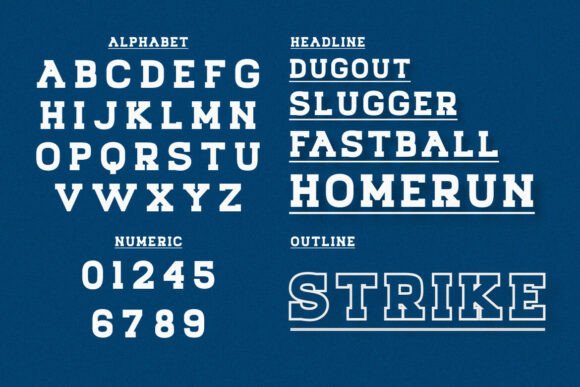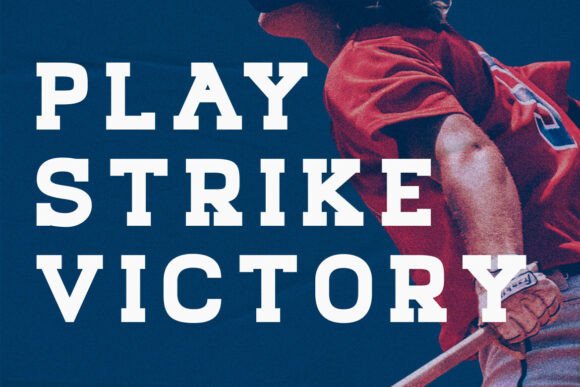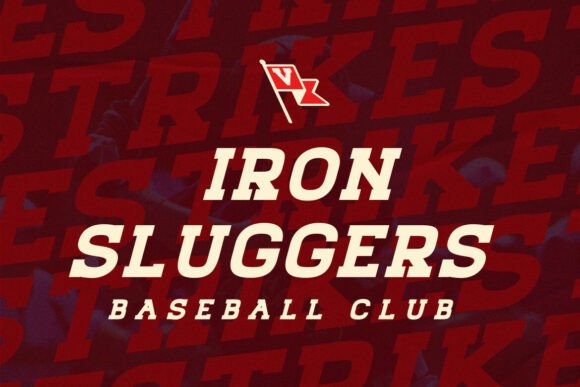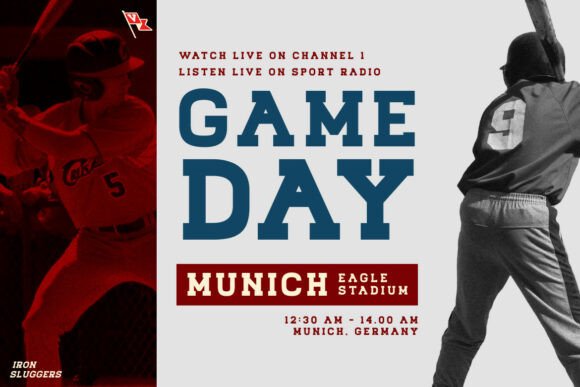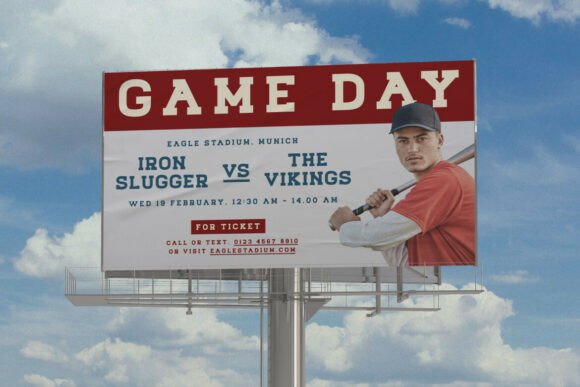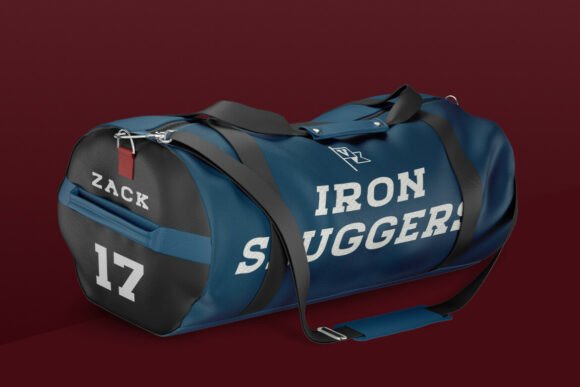
The Ultimate Font for Sports Branding: Aerosta
I’ll never forget the time I was working on a project to create a logo for a local sports team. I had a clear vision of what I wanted to achieve, but I was struggling to find the perfect font to bring it all together. The font had to be bold, dynamic, and highly legible, even at a distance. That’s when I stumbled upon Aerosta, a bold display typeface specifically designed for athletic branding and sports-themed visuals. In this article, I’ll share my experience with Aerosta, its features, and how to make the most of it in your designs.
A Personal Review of Aerosta
What I Love About Aerosta ✨
- 💪 **Strong Slab-Serif Foundation**: Aerosta’s condensed letterforms, heavy weight, and tight spacing make it perfect for headlines and promotional materials that demand attention.
- 🔍 **Excellent Visibility**: The font’s solid, geometric structure ensures that it remains clear and legible, even at a distance or in small sizes.
- 🏈 **Sport-Centric Alternates**: Aerosta includes sport-centric alternates, numerals, and uppercase characters, making it a versatile choice for dynamic layouts in both digital and print formats.
- 🎨 **Highly Customizable**: With OpenType features and glyphs, you can experiment with different styles and variations to match your brand’s unique personality.
- ⚠️ **Limited Use Cases**: Aerosta is a display font, which means it’s best suited for headlines and titles. It may not be the best choice for body text or longer paragraphs.
- 🤔 **Limited Language Support**: As a specialty font, Aerosta may not support all languages or characters. Be sure to check the font’s specifications before using it for a multilingual project.
The Story Behind Aerosta
Aerosta was designed with the sports industry in mind. Its creators wanted to craft a font that would capture the energy, dynamism, and competitiveness of sports branding. Inspired by classic athletic typography, Aerosta combines a strong slab-serif foundation with modern, geometric elements. The result is a font that’s both bold and elegant, perfect for creating stunning sports-themed visuals.
| What is Aerosta best used for? | Aerosta is best used for athletic branding, sports-themed visuals, headlines, and titles that require a strong impact. |
| Is Aerosta suitable for body text? | No, Aerosta is a display font and is best suited for headlines and titles. It may not be the best choice for body text or longer paragraphs. |
| Does Aerosta support OpenType features? | Yes, Aerosta supports OpenType features, including glyphs and stylistic alternates. |